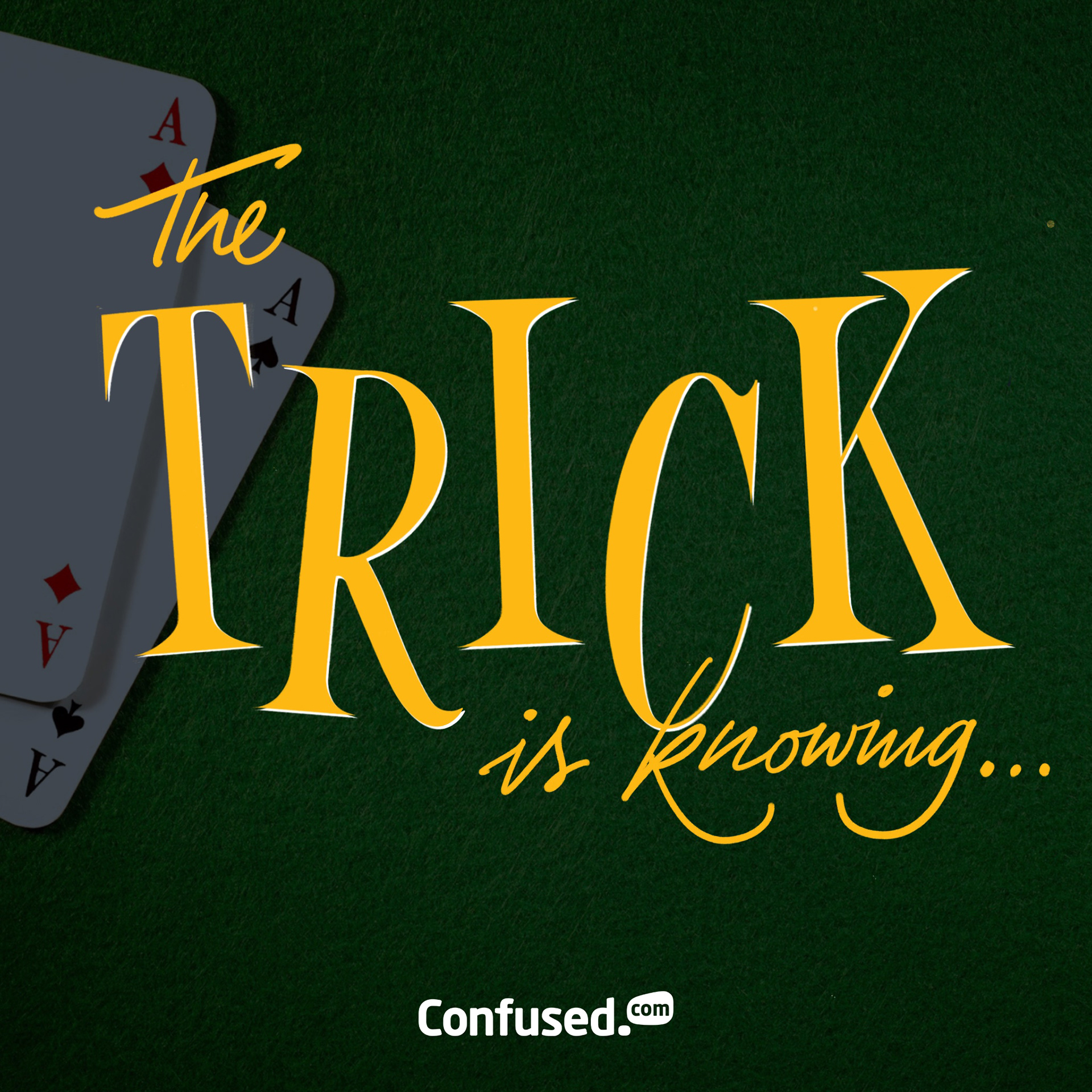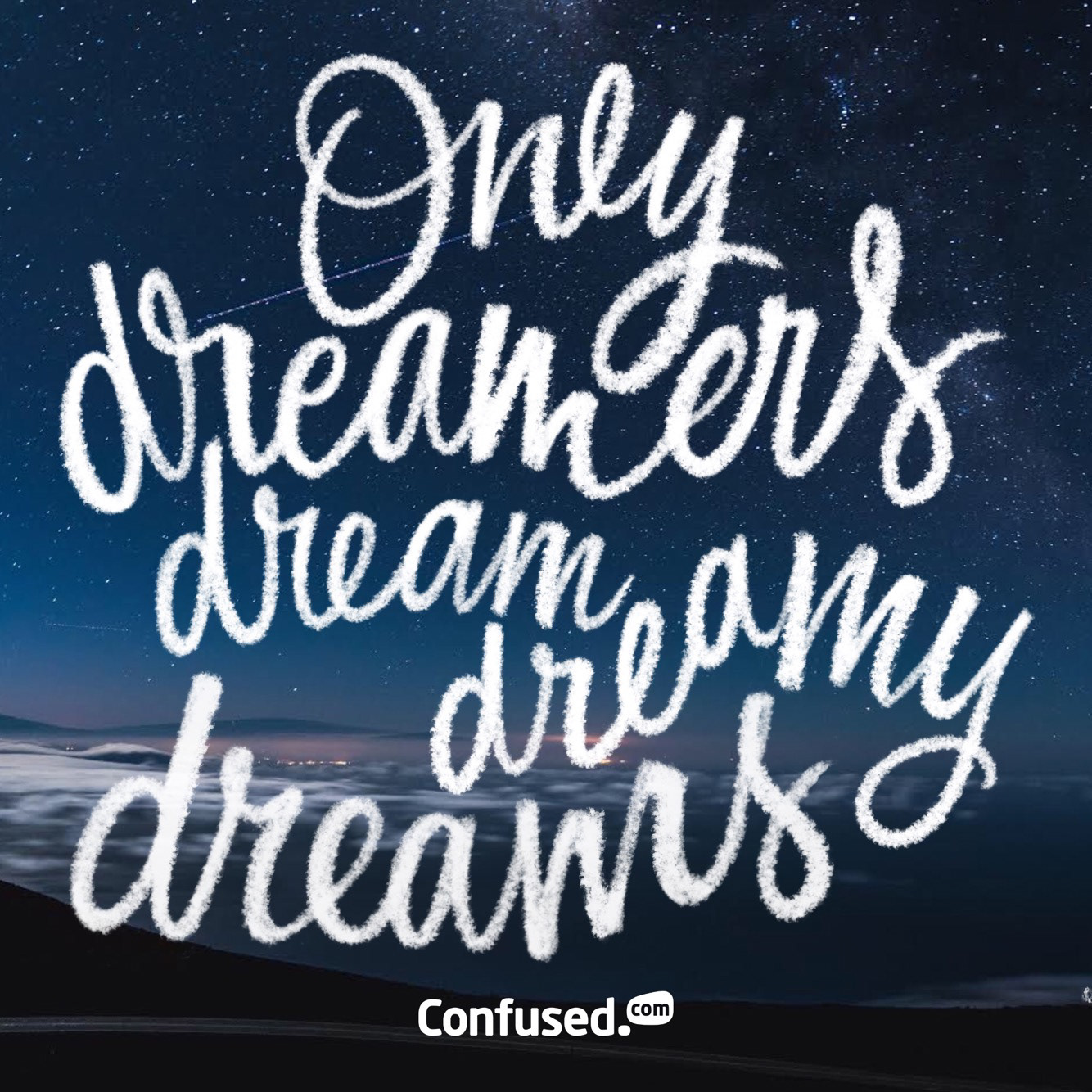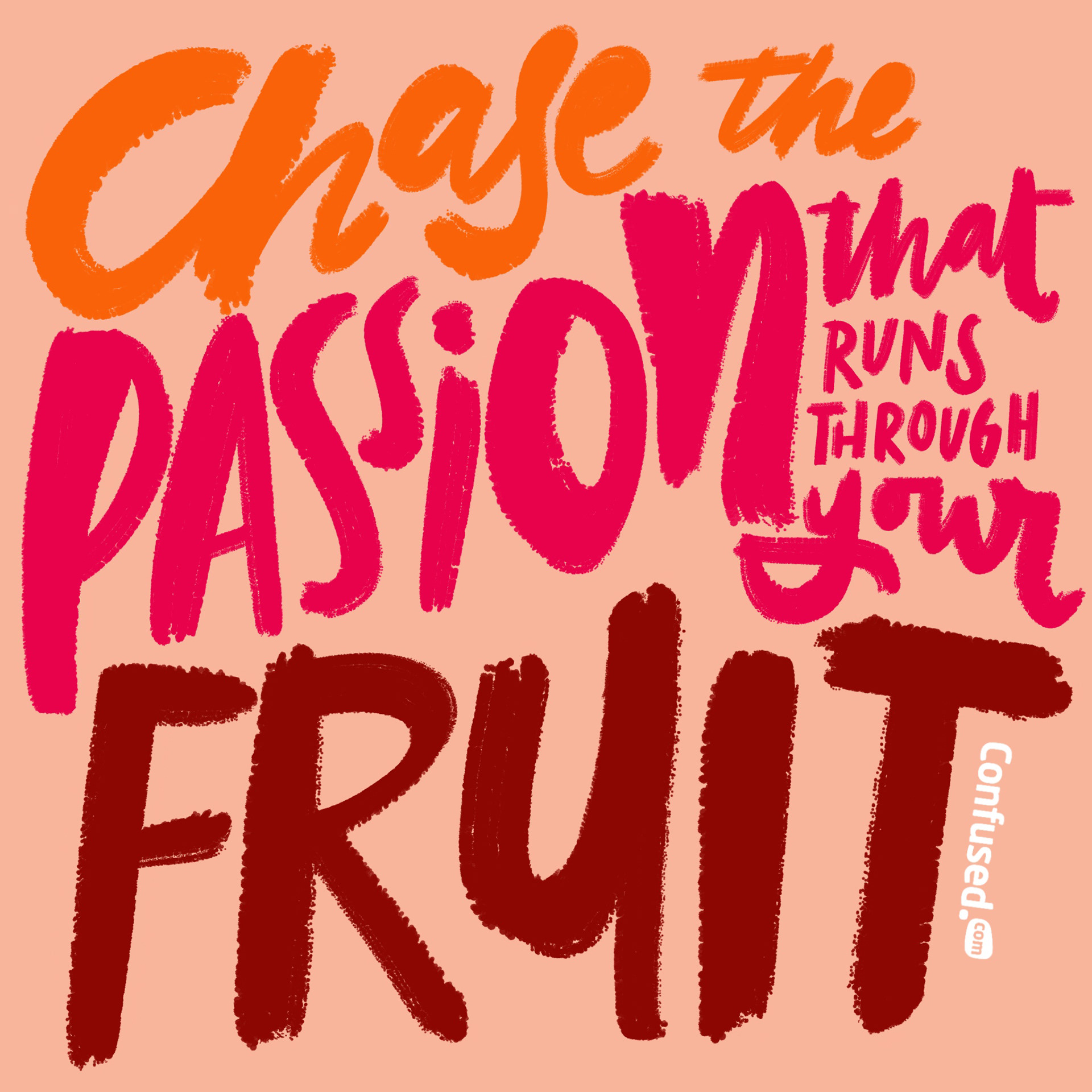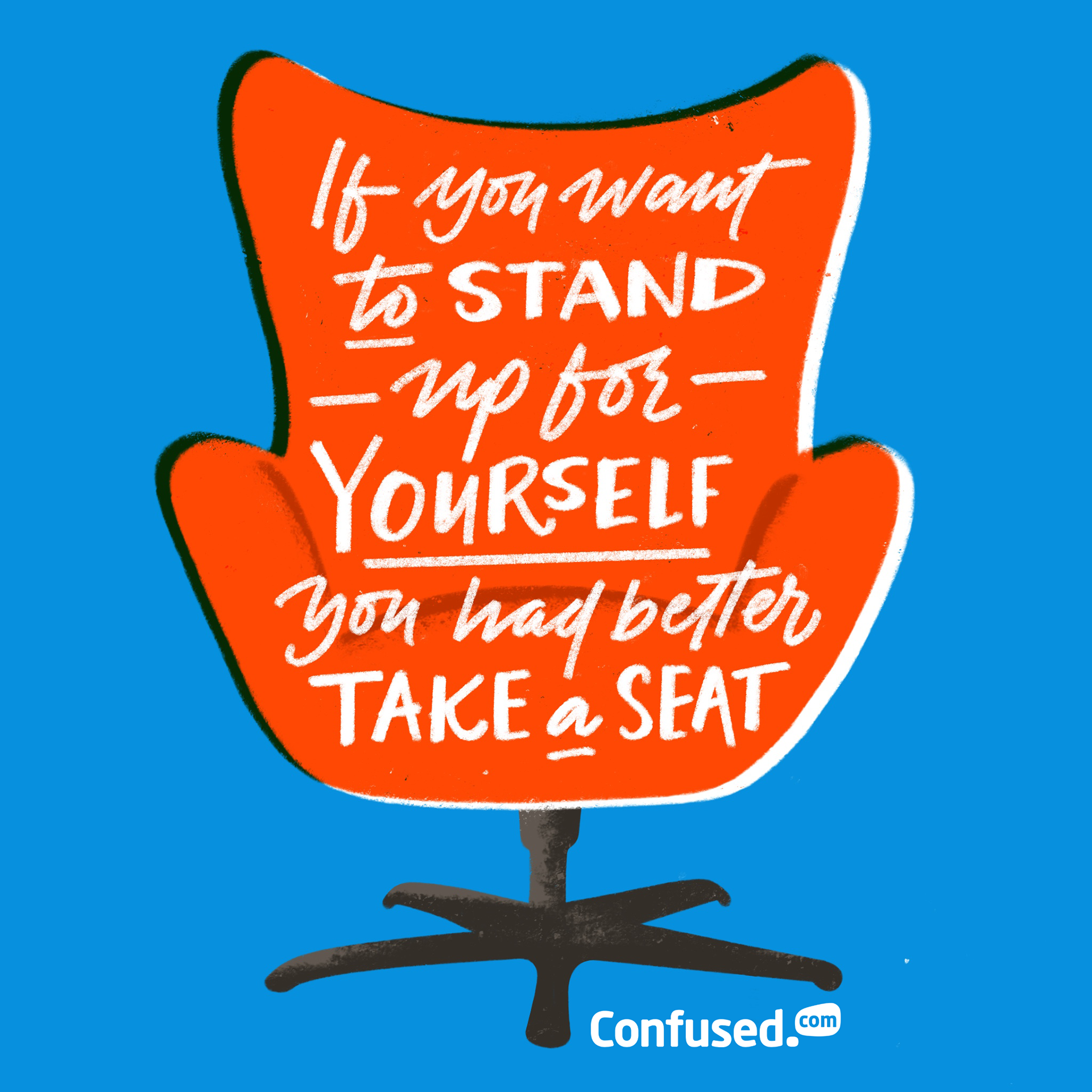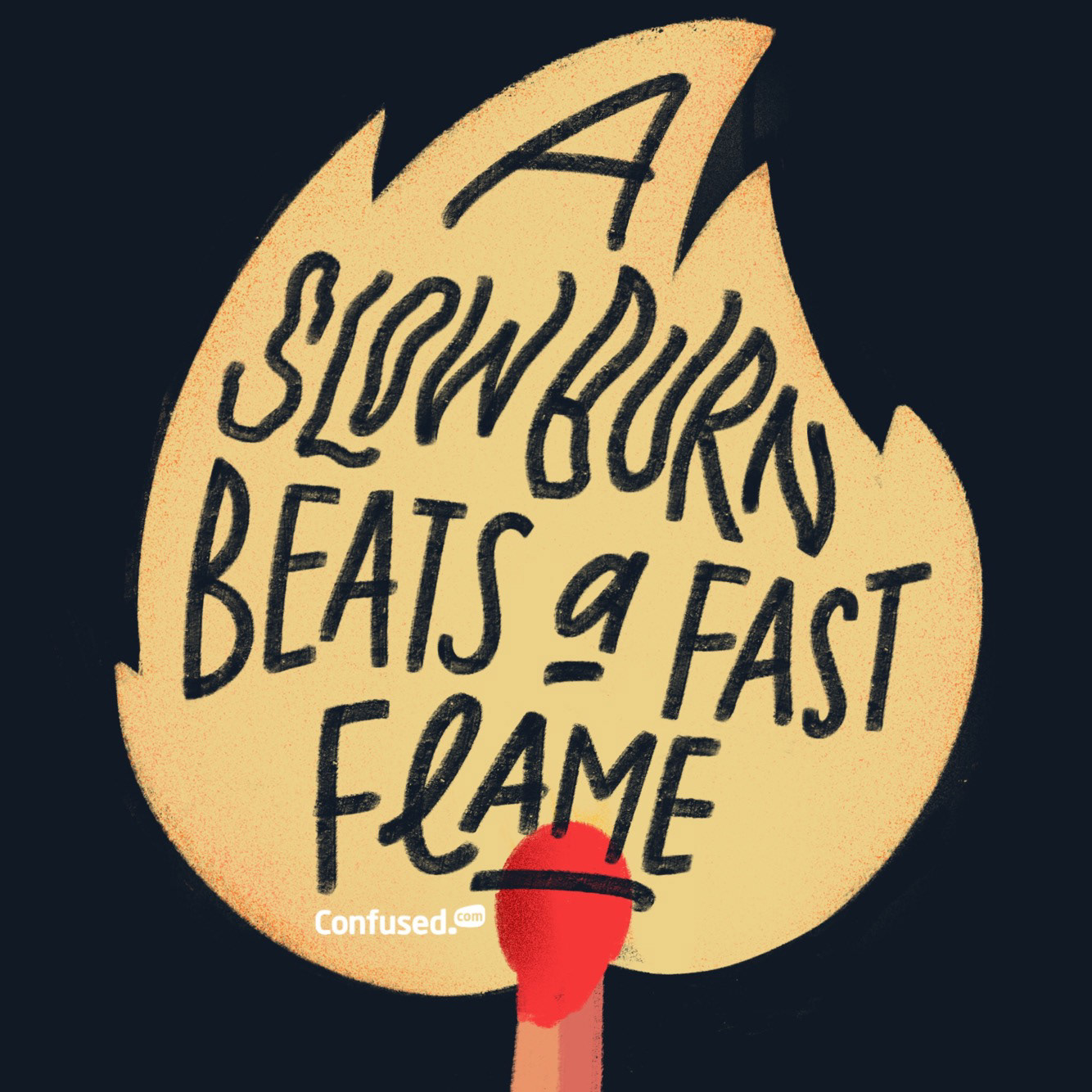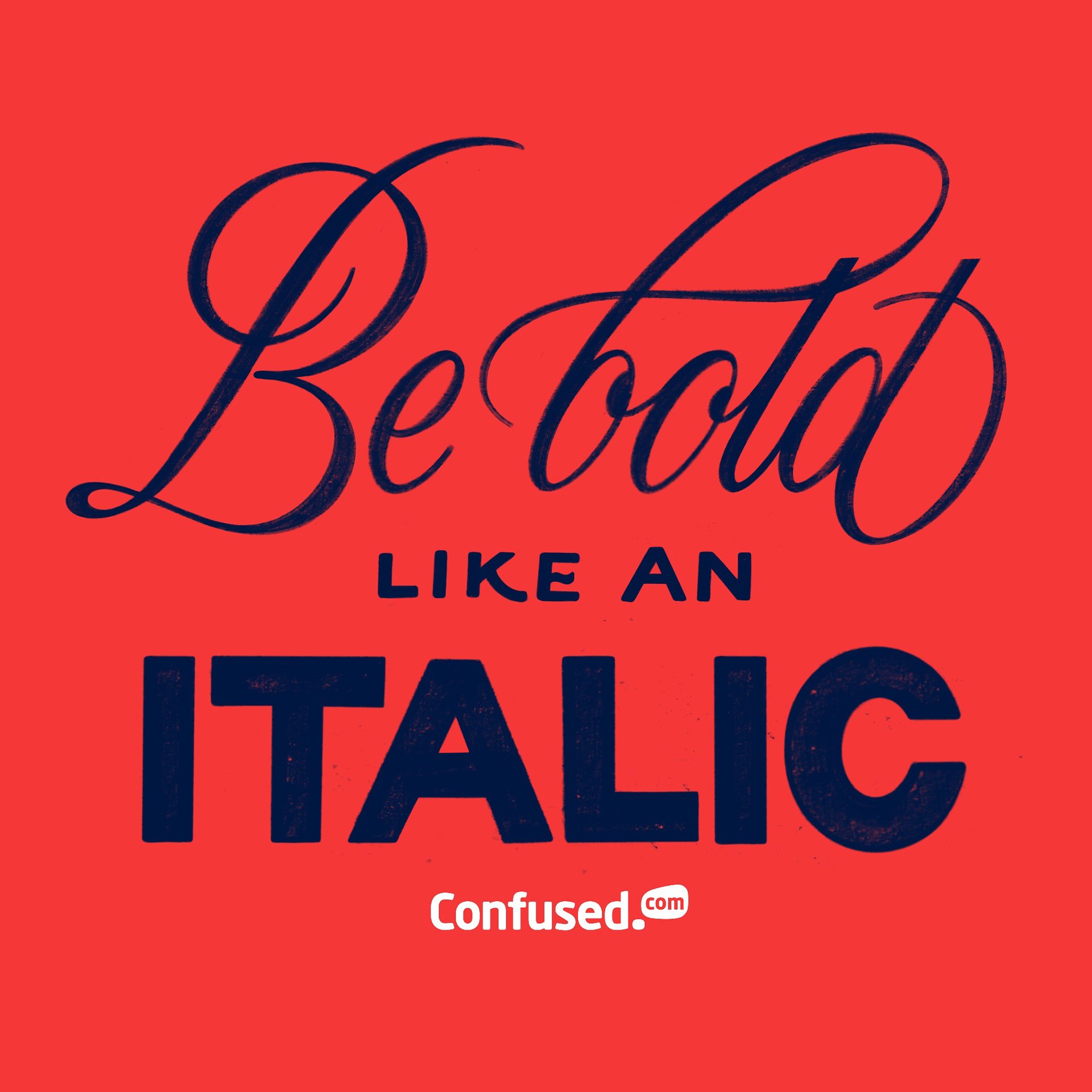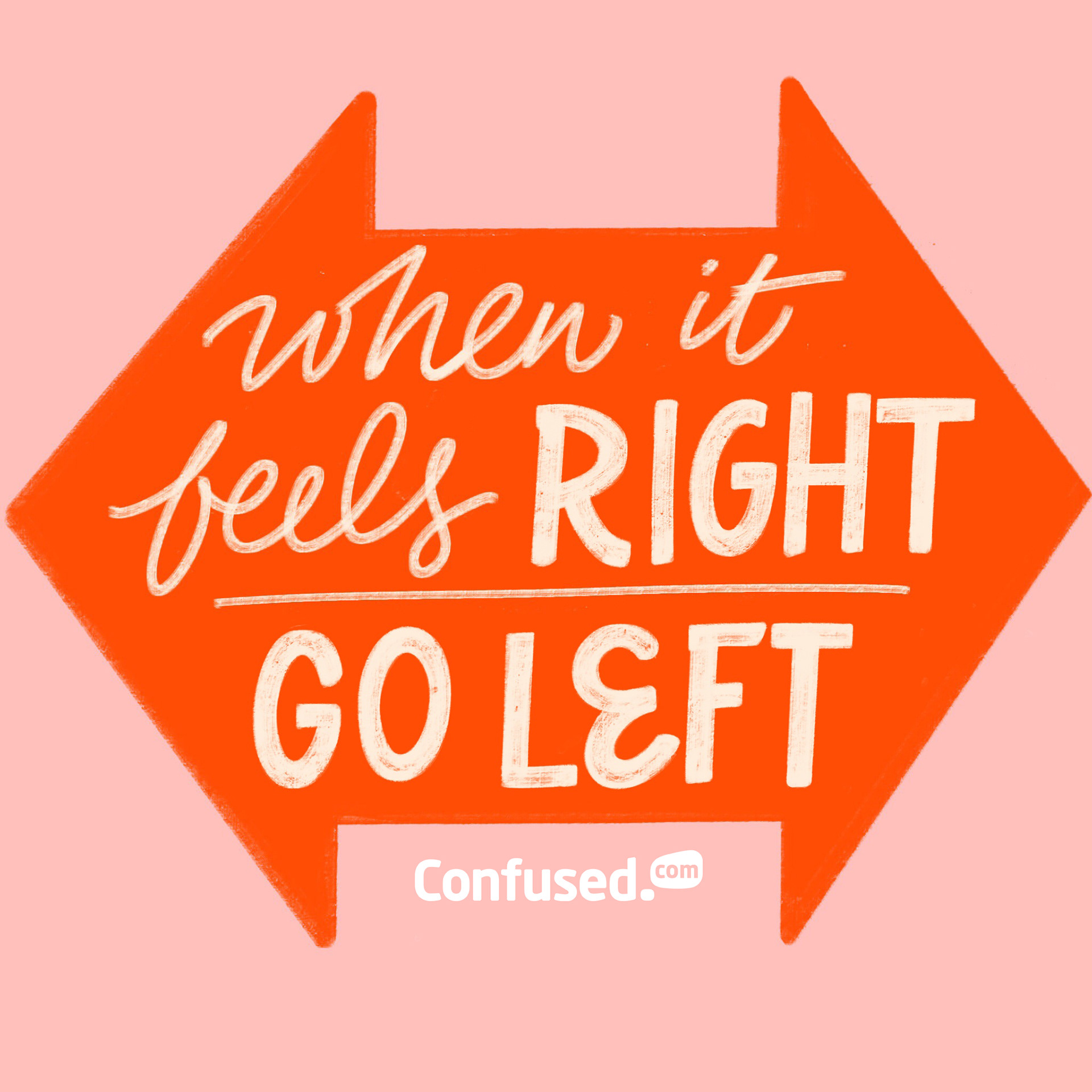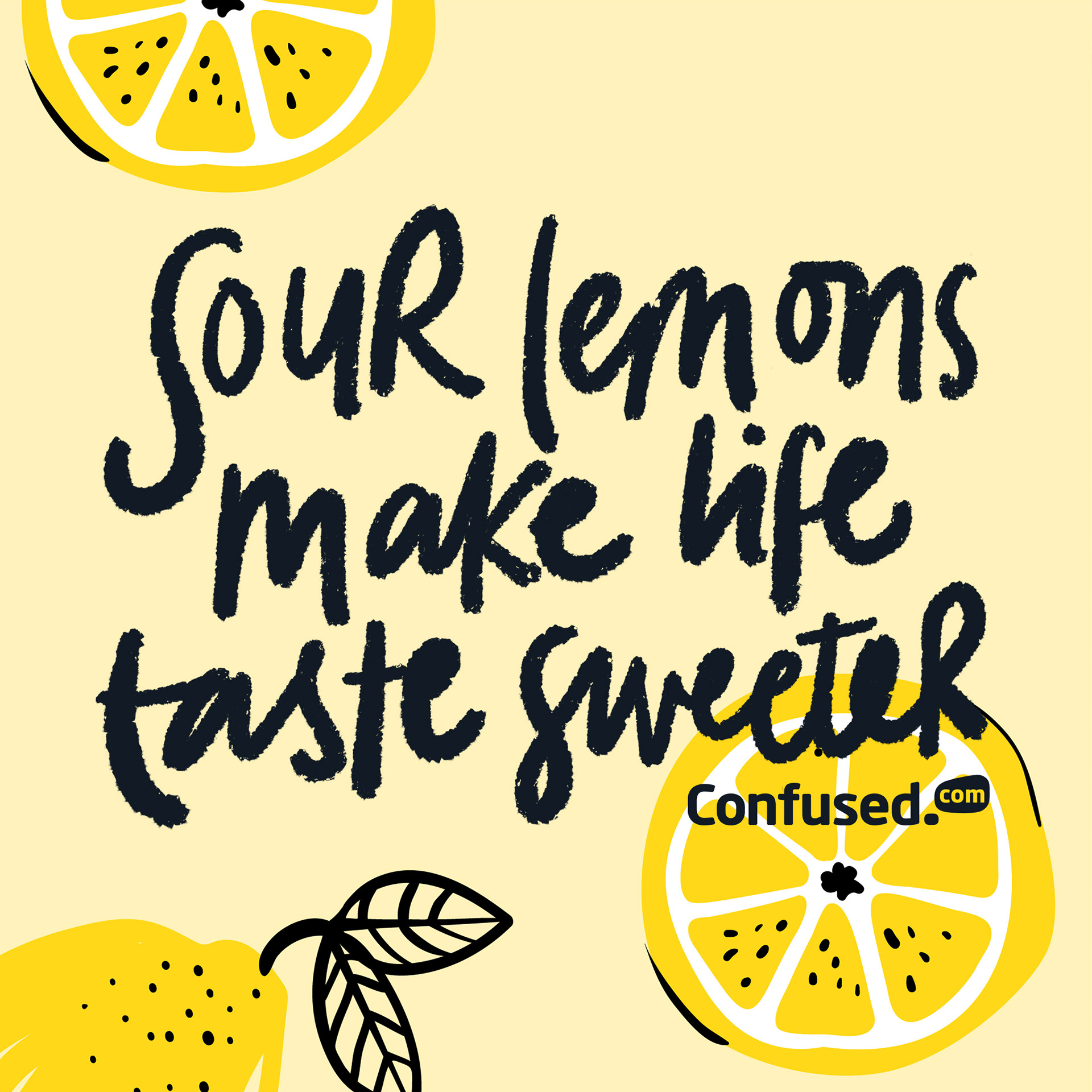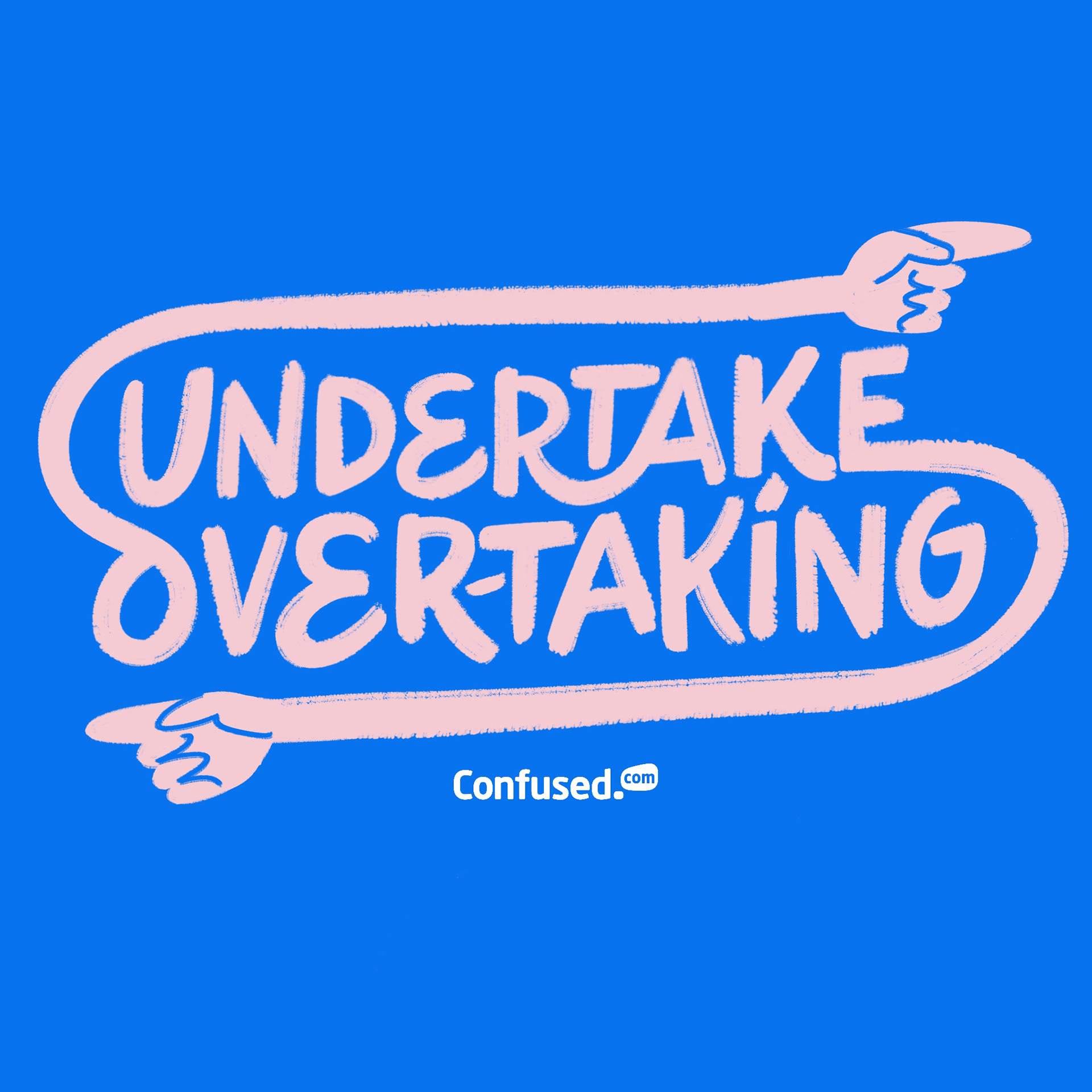
We devised a social media concept for Confused.com in keeping with their 'confusion to clarity' theme, that poked fun at the world of inspirational quotes on Instagram, Pinterest etc. We came up with a series of nonsense quotes to purposefully confuse people, closely followed with the strap line which read 'For quotes that actually make sense... Don't be confused. Be Confused.com'. I got to hand letter this on-going series in the style of quotes you might see on social media.